At Monotype, the Type Drawing Office was responsible for adapting a designer's original artwork to the requirements of the Monotype system. The various tasks undertaken by the drawing clerks usually involved:
• enlarging the letterforms to a standard size of ‘10-inch’, and producing reverse-reading drawings, in pencil outline, which were suitable for pattern and matrix production;
• expanding the character set to include punctuation, symbols, accented characters, etc.;
• extending the design to extra styles such as bold and italic;
• adapting the letter drawings from their originally intended point size to produce larger and smaller sizes (a process known as ‘optical scaling’);
• making wax patterns, which were used to produce copper patterns from which punches could be engraved.
Hence, the work undertaken by the TDO was vital to the quality of the typefaces distributed by Monotype. The company’s entire machine and type-making process, which was devised early in the twentieth century, was a fine example of engineering accomplishment, and the drawings produced by its TDO were central to the high standards of its typographical output.
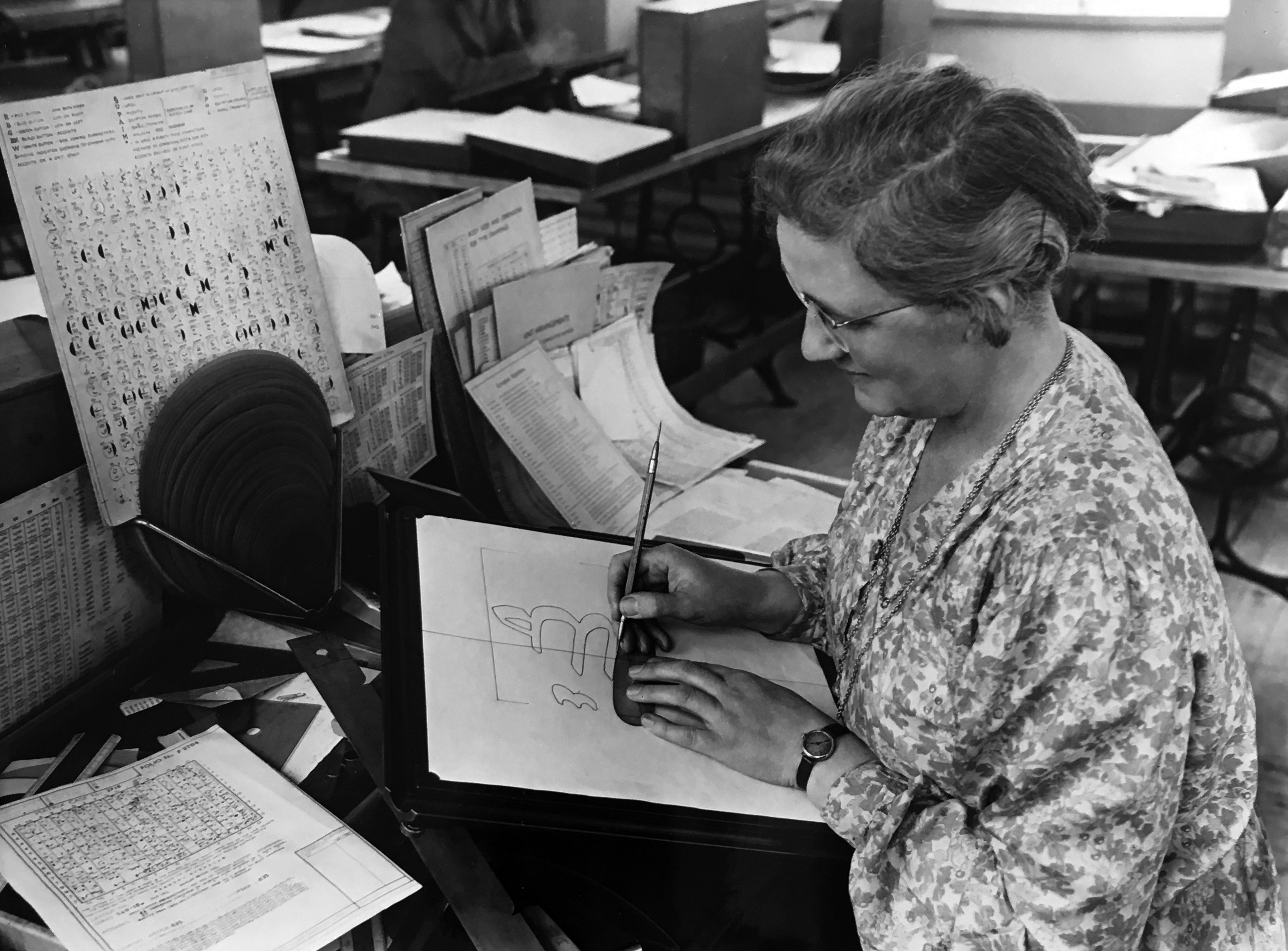
Monotype employee Dora Laing drawing an Arabic character, in reverse, at a size of 10-inch. The photograph was most likely taken in the late 1950s. Courtesy Richard Cooper.
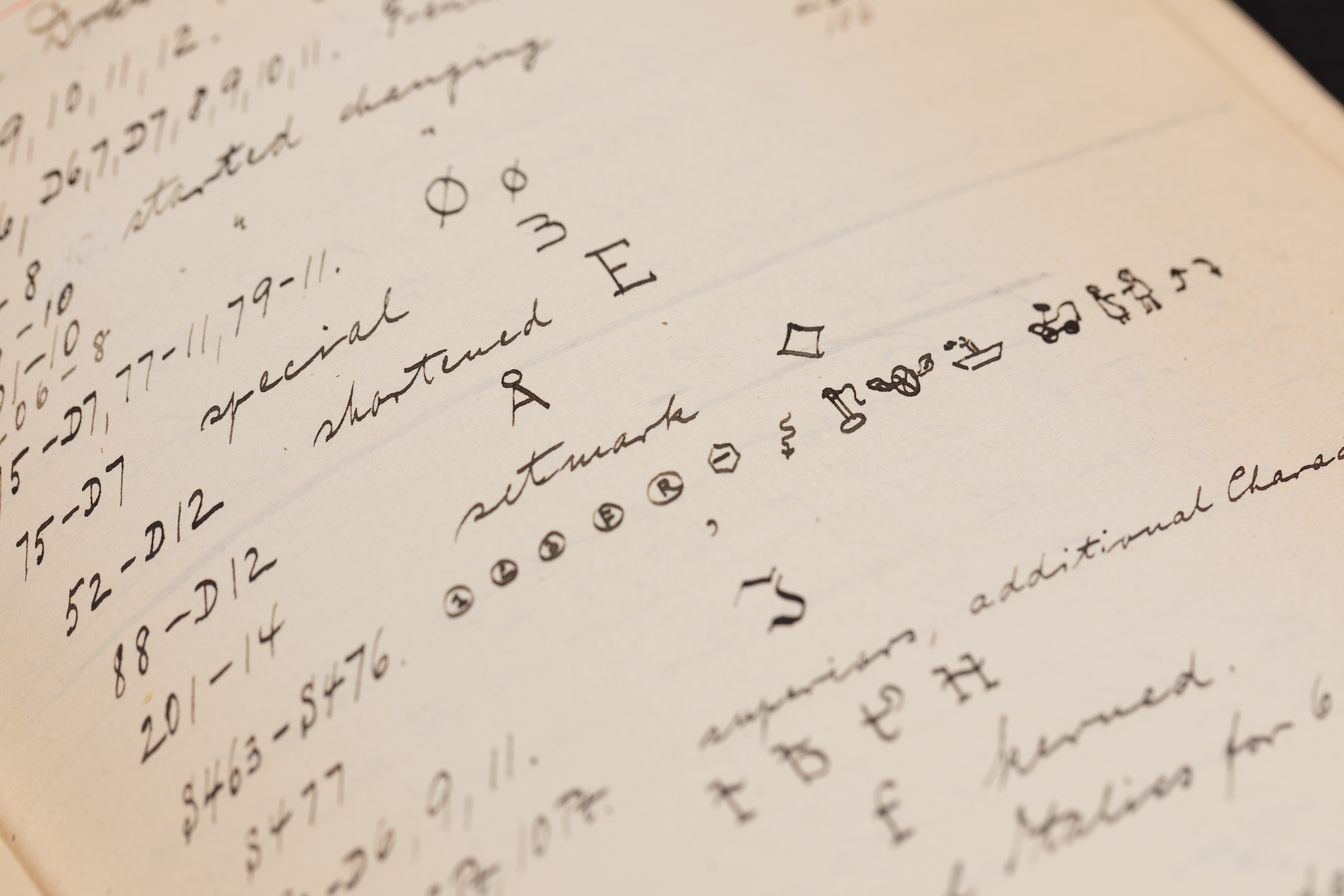
Handwritten record by Fritz Max Steltzer of character drawings produced in the Monotype TDO. © Monotype archives
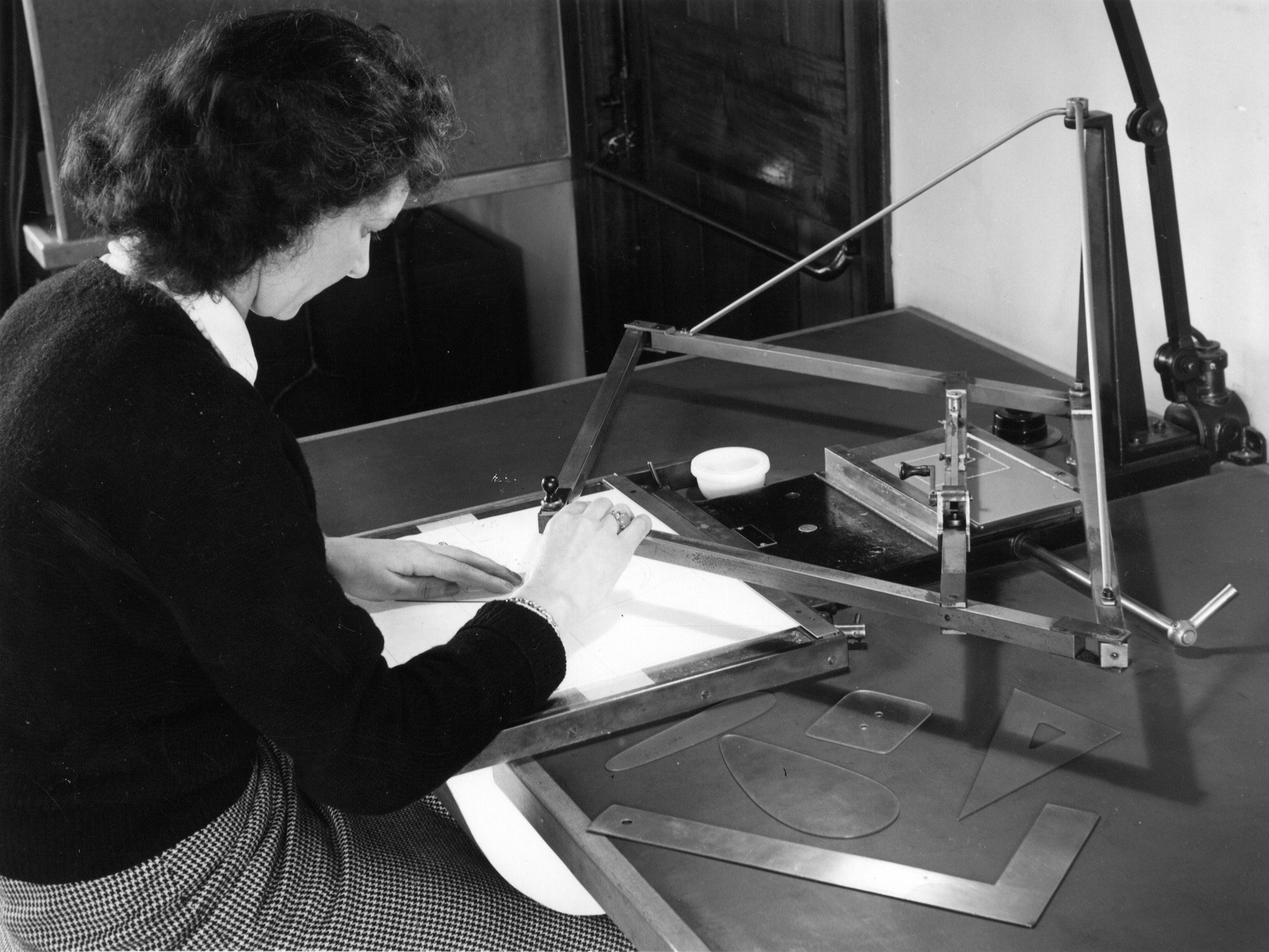
Monotype employee Jennie Harris operating a pantograph to make a wax pattern from a 10-inch drawing. © Monotype archives
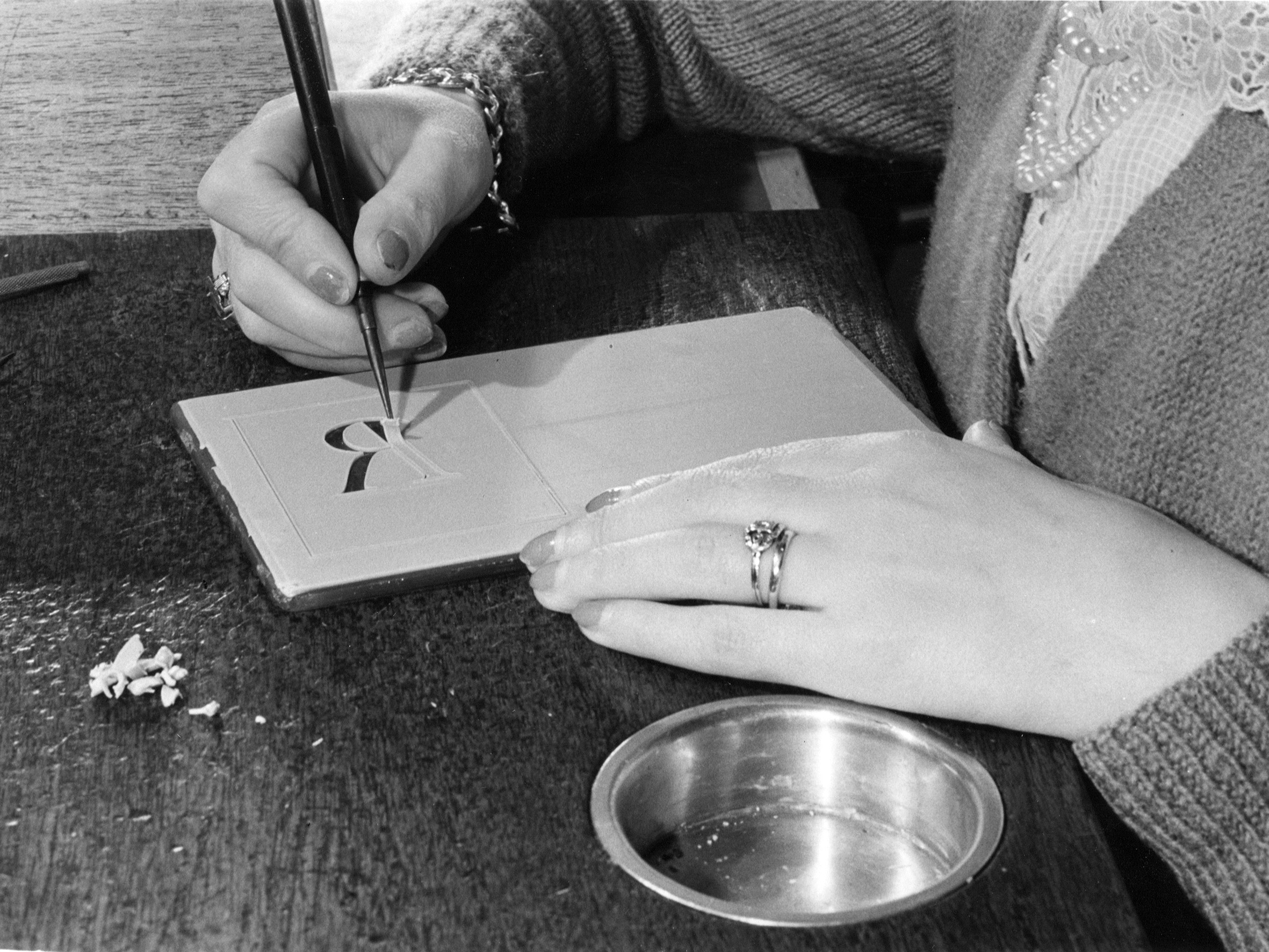
A TDO employee working on a wax pattern, which would later be used to produce a copper pattern. © Monotype archives
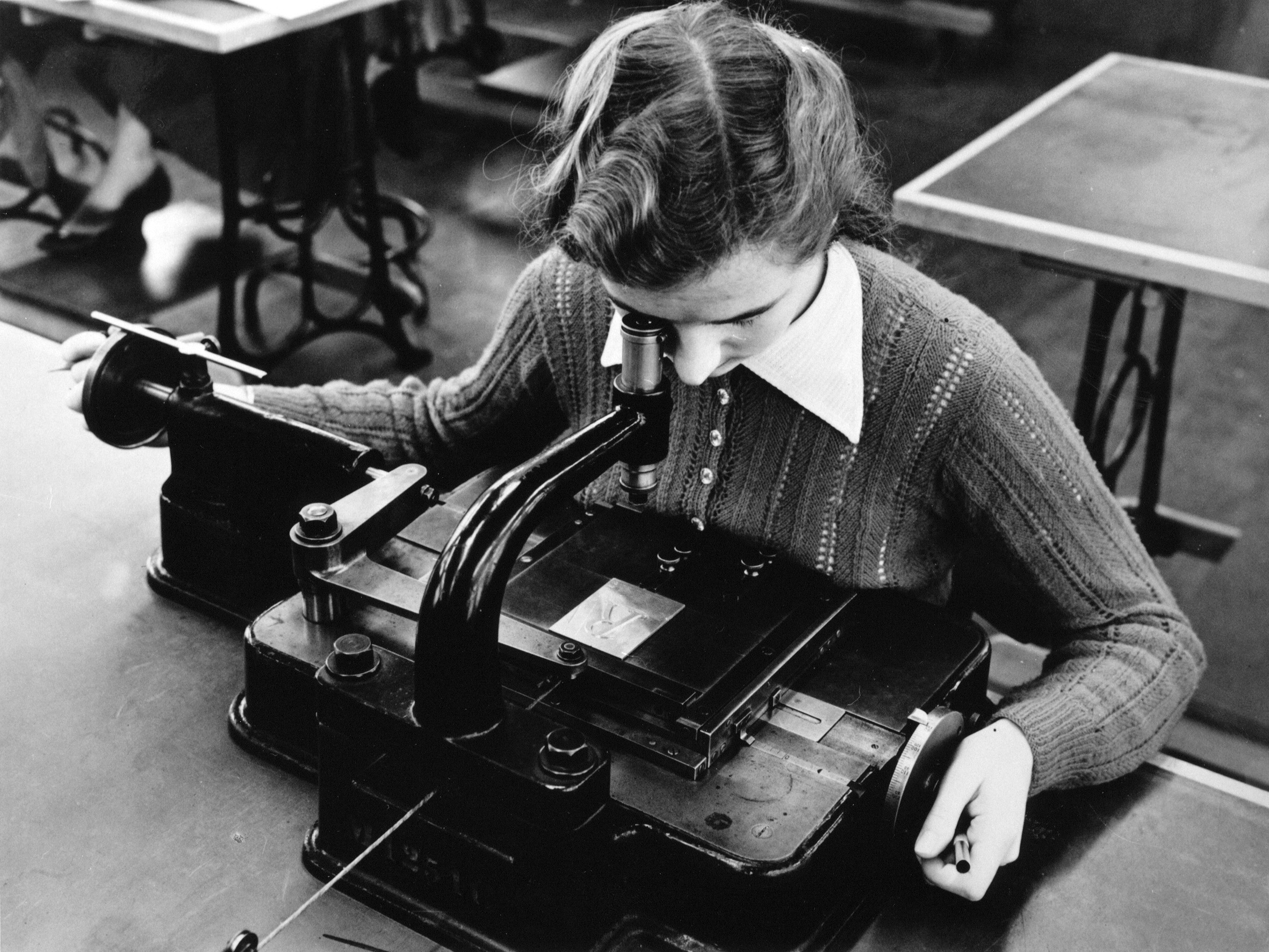
A Monotype employee checking the accuracy of a copper pattern under a microscope. © Monotype archives
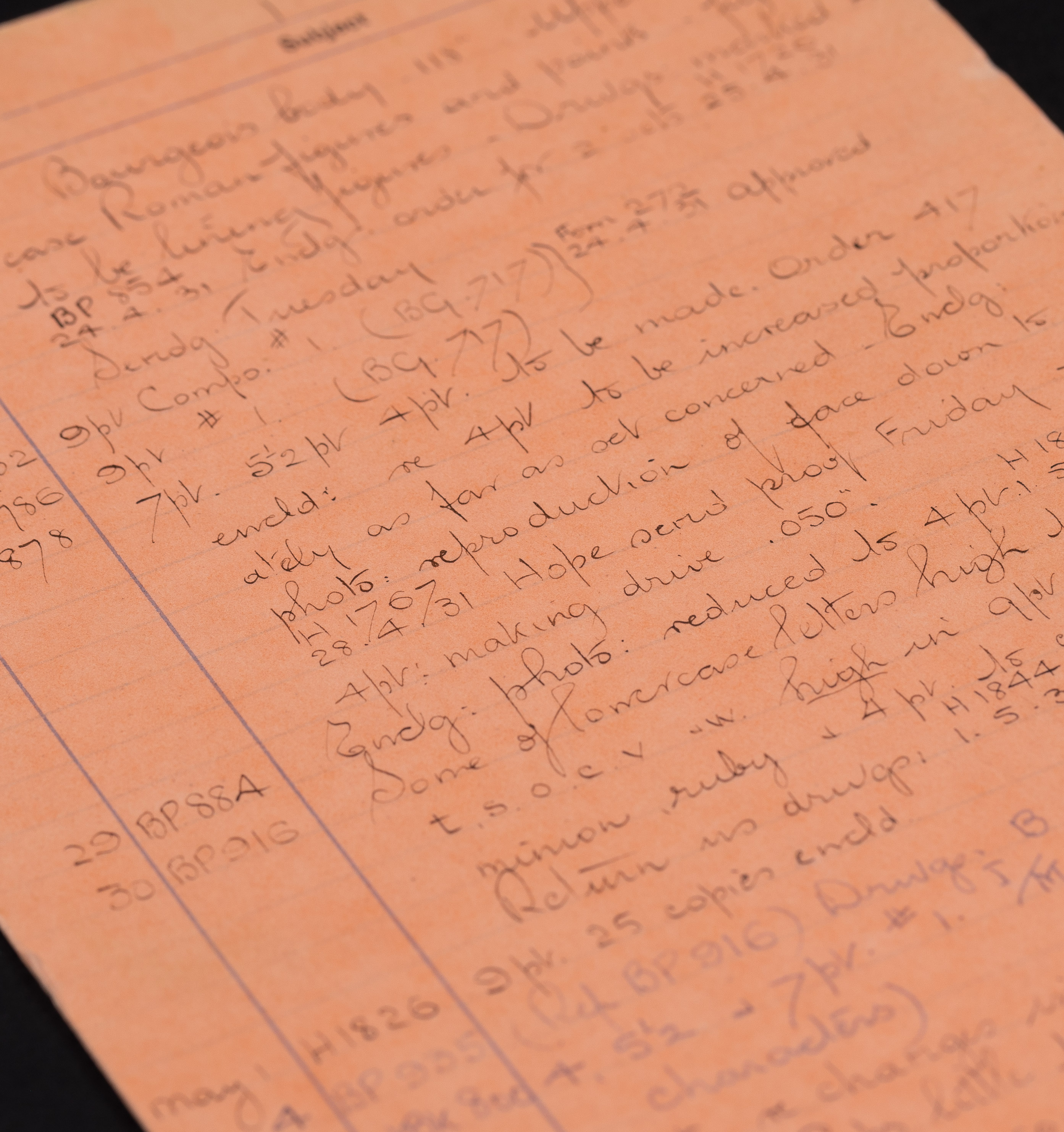
A so-called 'pink card' listing all the tasks undertaken by TDO staff in the production of Times New Roman. © Monotype archives, photograph Laura Bennetto